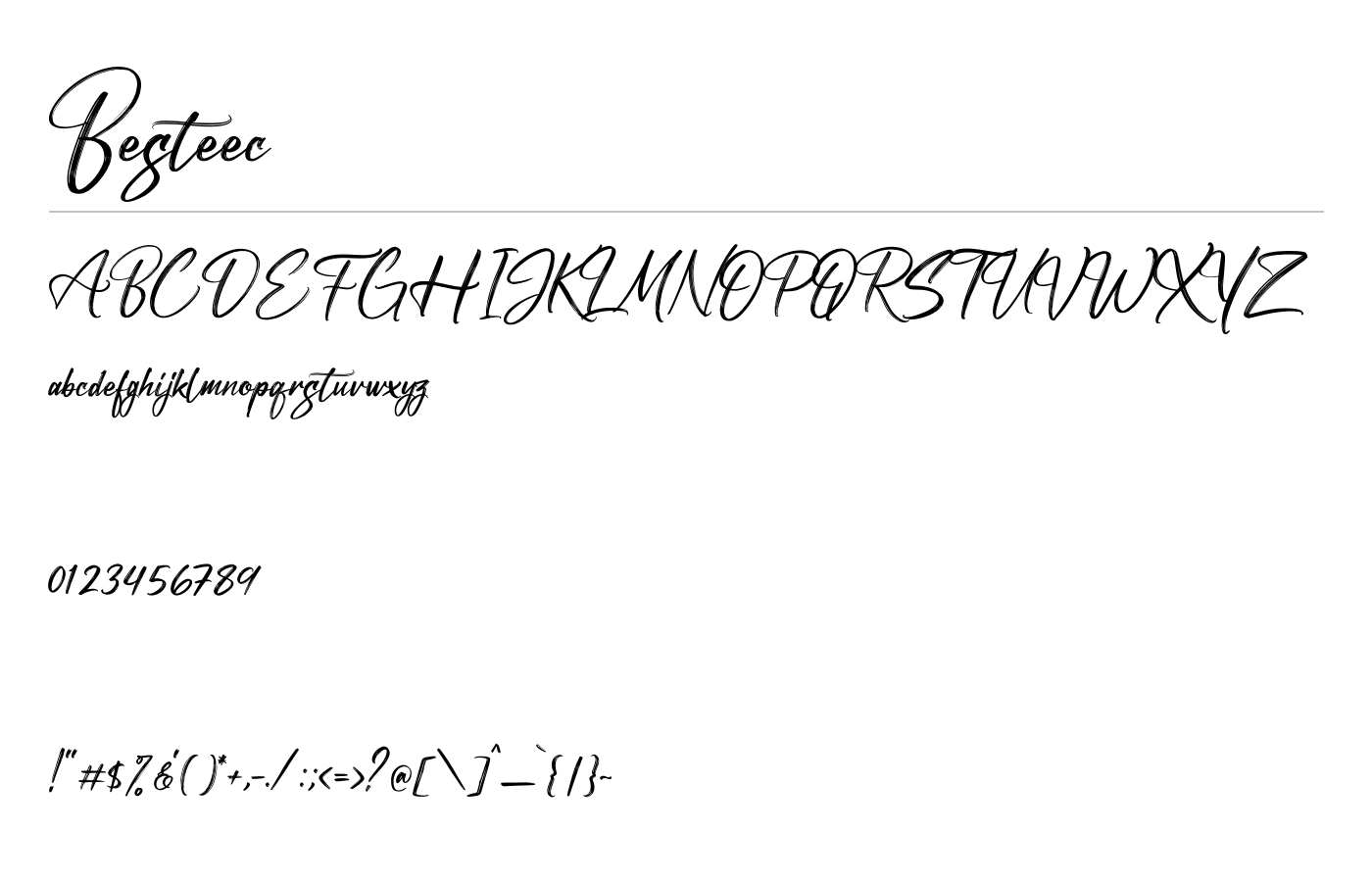
Besteec is a graceful script font with elegant, flowing strokes that give it a refined and sophisticated feel. Its slender, slightly irregular letterforms and high contrast between thick and thin lines make it perfect for luxury branding, invitations, and stylish logos that want to convey a personal yet polished touch. This font works best in headlines or small text where its decorative details can truly shine.
Besteec Font
About Besteec Font
| Font family | Besteec Font |
| Designer | Nanang Jamaludin |